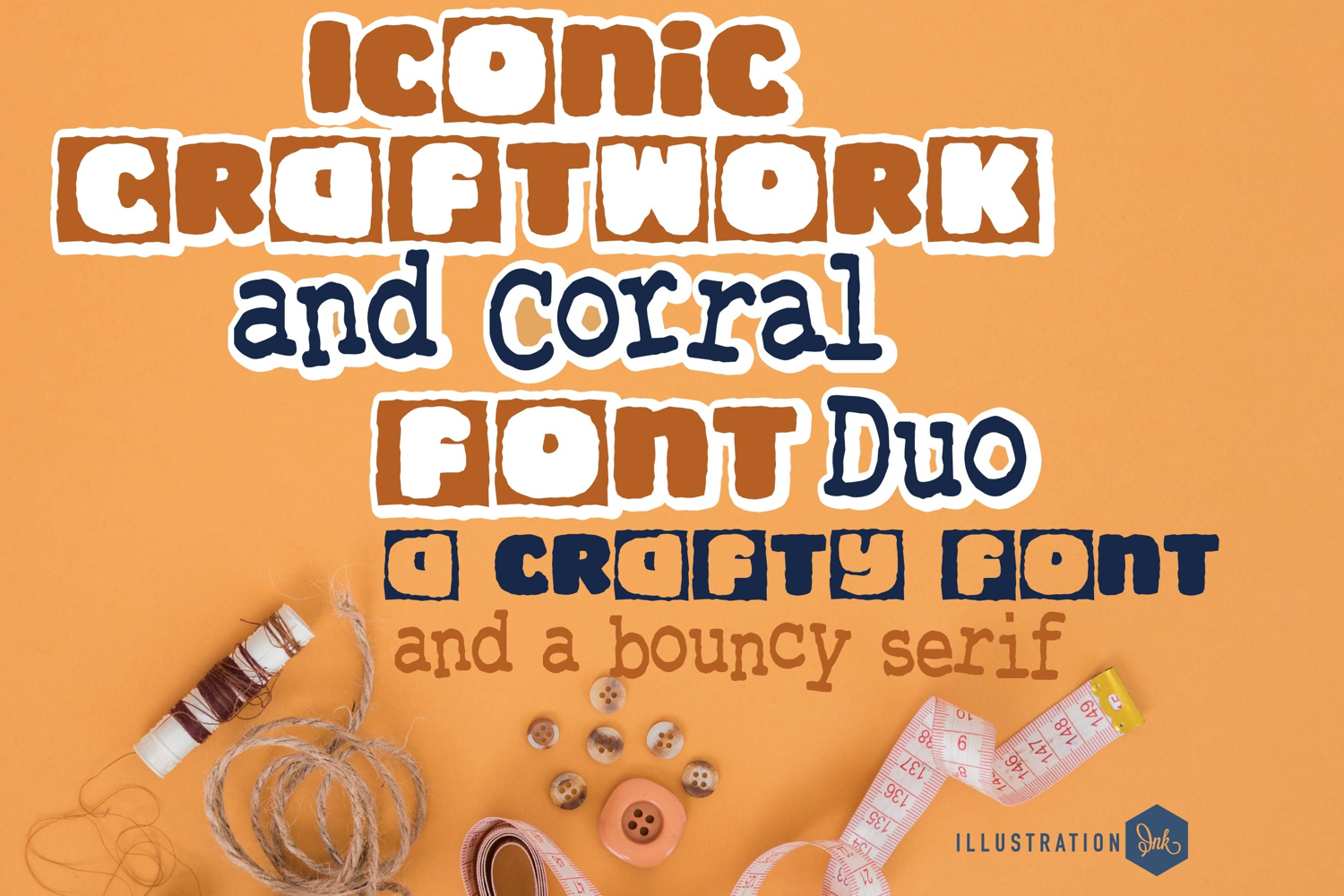
Iconic Craftwork and Corral Font Duo
This hand-crafted font duo combines a fun chunky sans serif with a cute hand-crafted serif that look perfect together! With all family members combined of the two fonts, you get 11 fonts all together!
Hand-crafted fonts can be either formal or informal, and they can be used for a variety of purposes. Some of the characteristics of handwritten fonts include: The letters are not perfectly uniform in size or shape. There may be slight variations in the spacing between letters and words. The font may have a "wiggly" or "squiggly" appearance. The font may be difficult to read at small sizes. Handwritten fonts can be a great way to add a casual touch to your designs. They can also be used to create a sense of nostalgia or whimsy. However, it is important to choose a handwritten font that is appropriate for the project you are working on. A formal handwritten font may not be appropriate for a casual invitation, while an informal handwritten font may not be appropriate for a corporate document.
• The letters are not perfectly uniform in size or shape.
• There may be slight variations in the spacing between letters and words.
• The font may have a "wiggly" or "squiggly" appearance.
• The font may be difficult to read at small sizes.